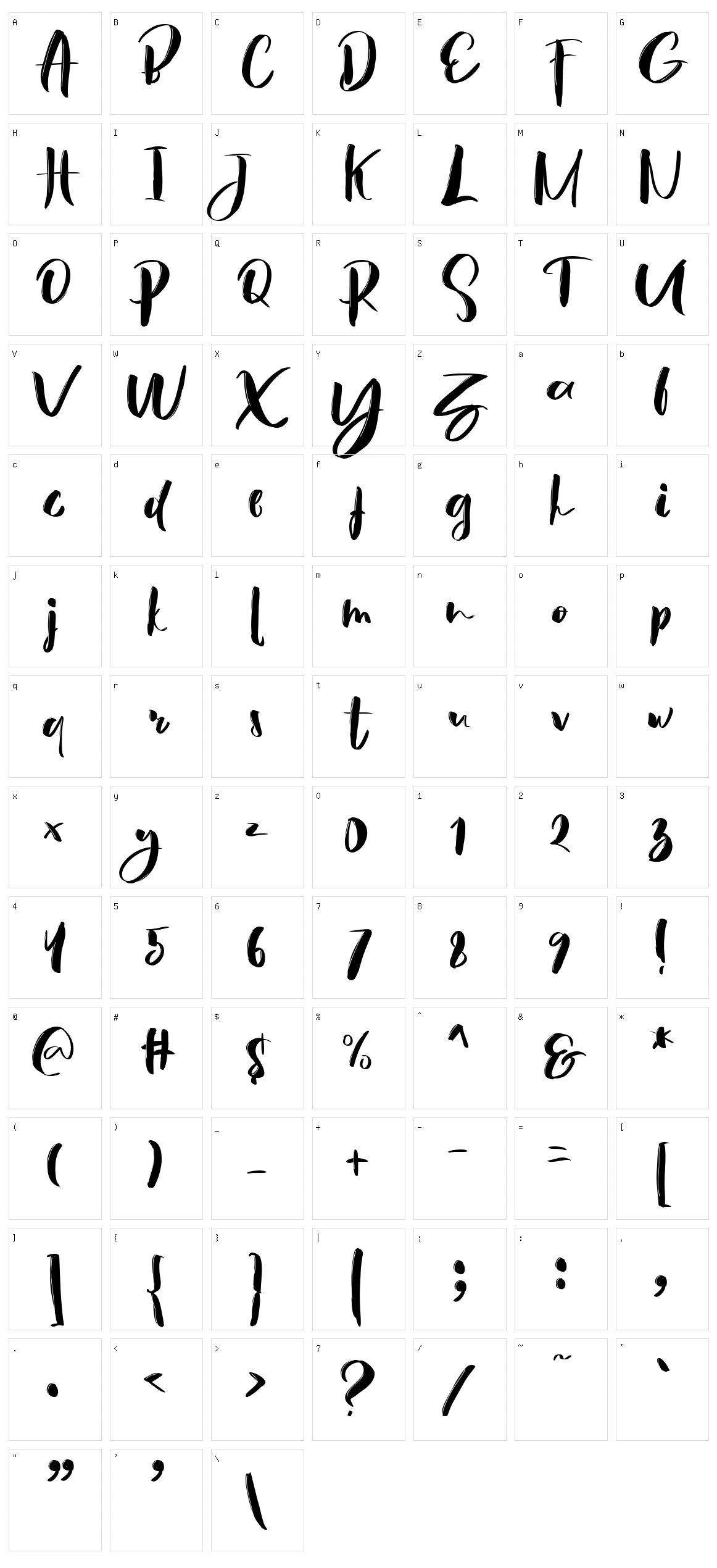
The free font Hey Sunset Brush is carefully designed by Debut Studio, showcasing a thoughtful balance of creativity and usability and falls under the Script font style. When you download the ZIP file, it contains only 80.56 KB of font files, making it lightweight and quick to download. Please review the license details below to understand permitted usage and distribution rights. If license information is not available, we recommend using this font for personal projects only or contacting the author directly for commercial usage permissions.